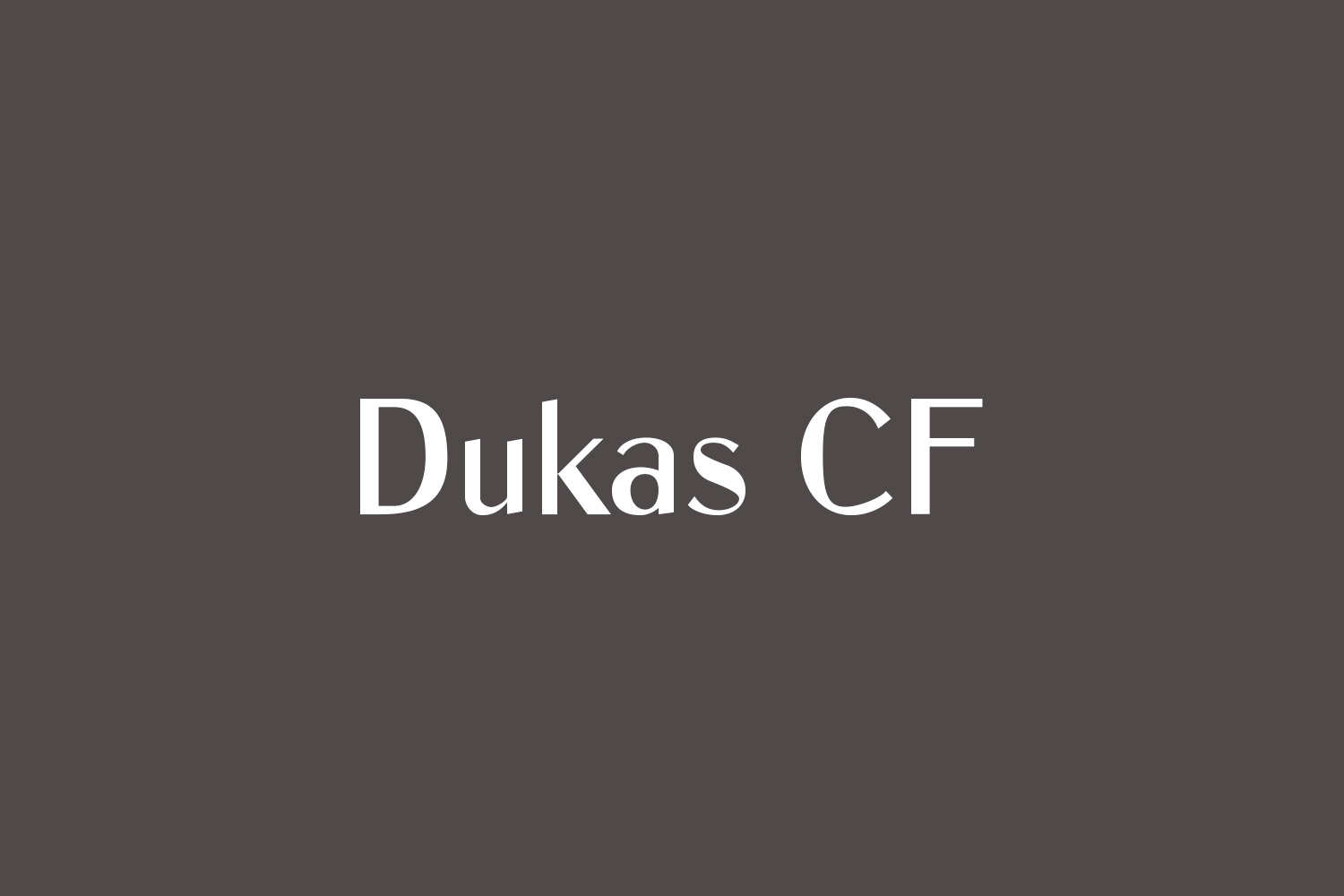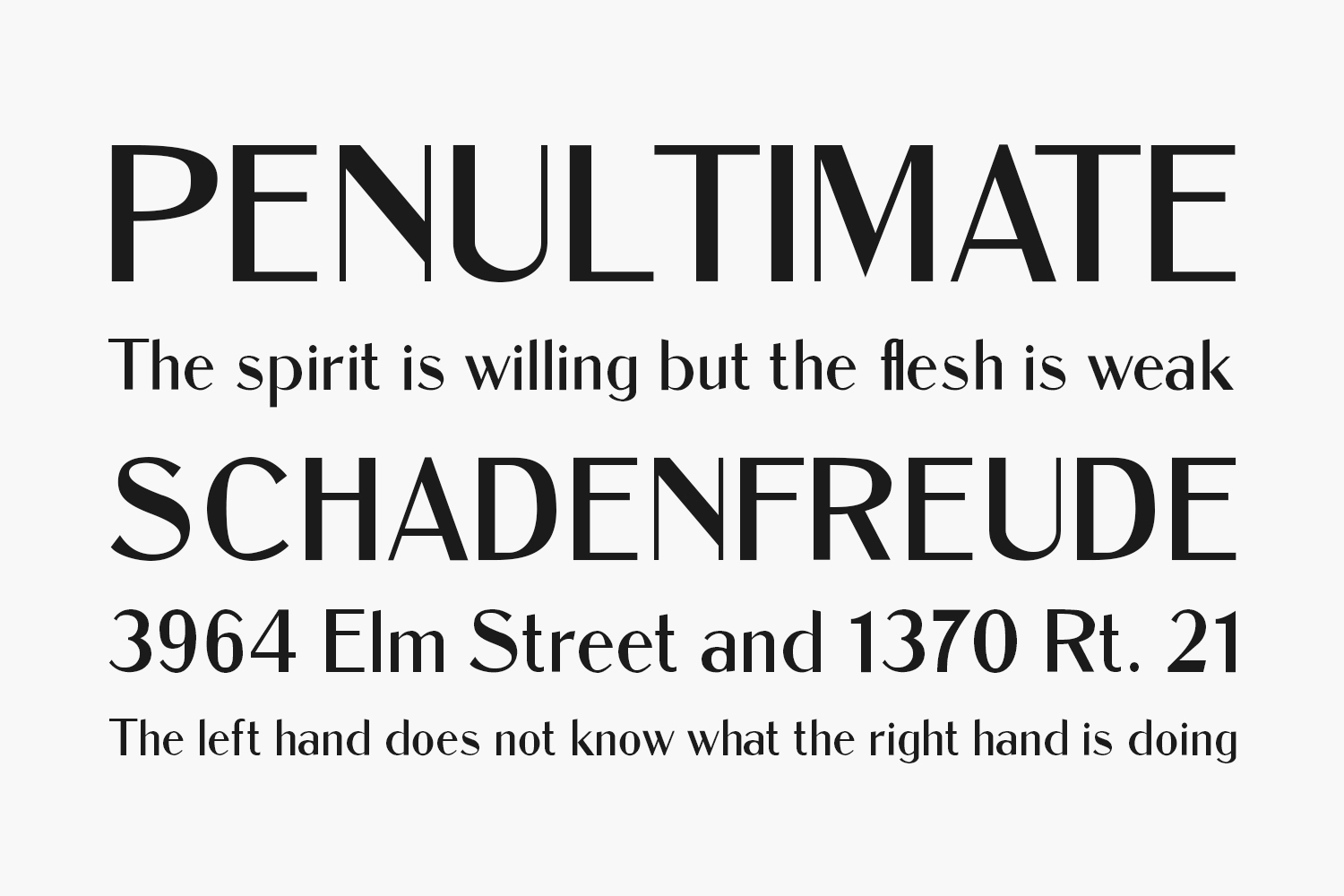
Dukas CF Free Font Family is my revival, completely redrawn, of Studley, a metal typeface I found in Specimen Book and Catalog (Inland Type Foundry, St. Louis, 1902). Dukas is a sans serif display font which I am presenting in three styles: Regular, SemiBold and Bold. I believe it would be most useful in poster, advertising, logo, headline, signage and greeting card design.
I have created 60 discretionary glyphs to complement the font.
I named Dukas after the great French composer, Paul Dukas (1865-1935).